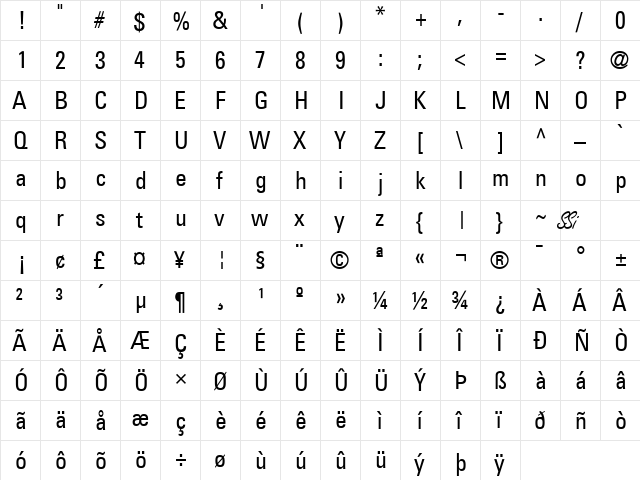
Nova Condensed SSi Condensed
Design Context for Nova Condensed SSi Typeface
Nova Condensed SSi is a composed and adaptable typeface that performs quietly and consistently across a wide range of design contexts. Its narrow stance lets it pack a punch even in space-constrained designs.